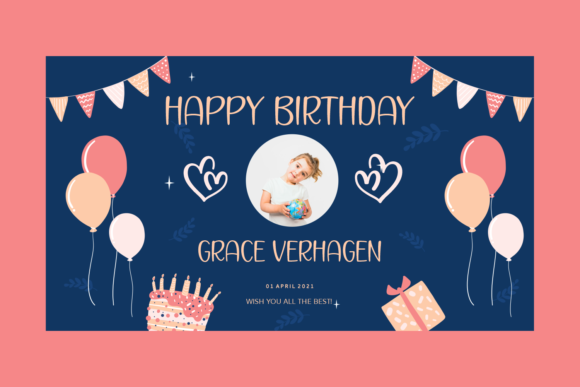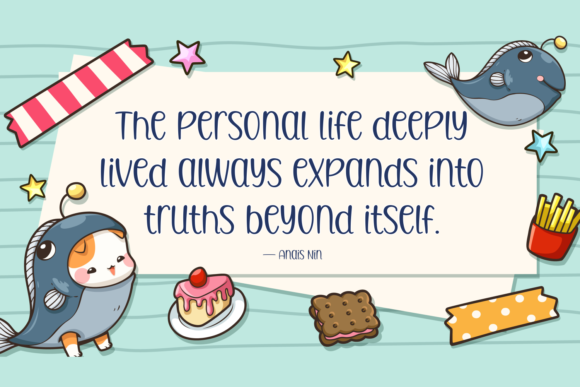
Aprilo Story Font
db-ku.com - Script & Handwritten -- Aprilo Story is a jolly and fun handwritten font with a relaxed theme, featuring a casual style. This font is perfect for children themed designs, especially when combined with bright colors.